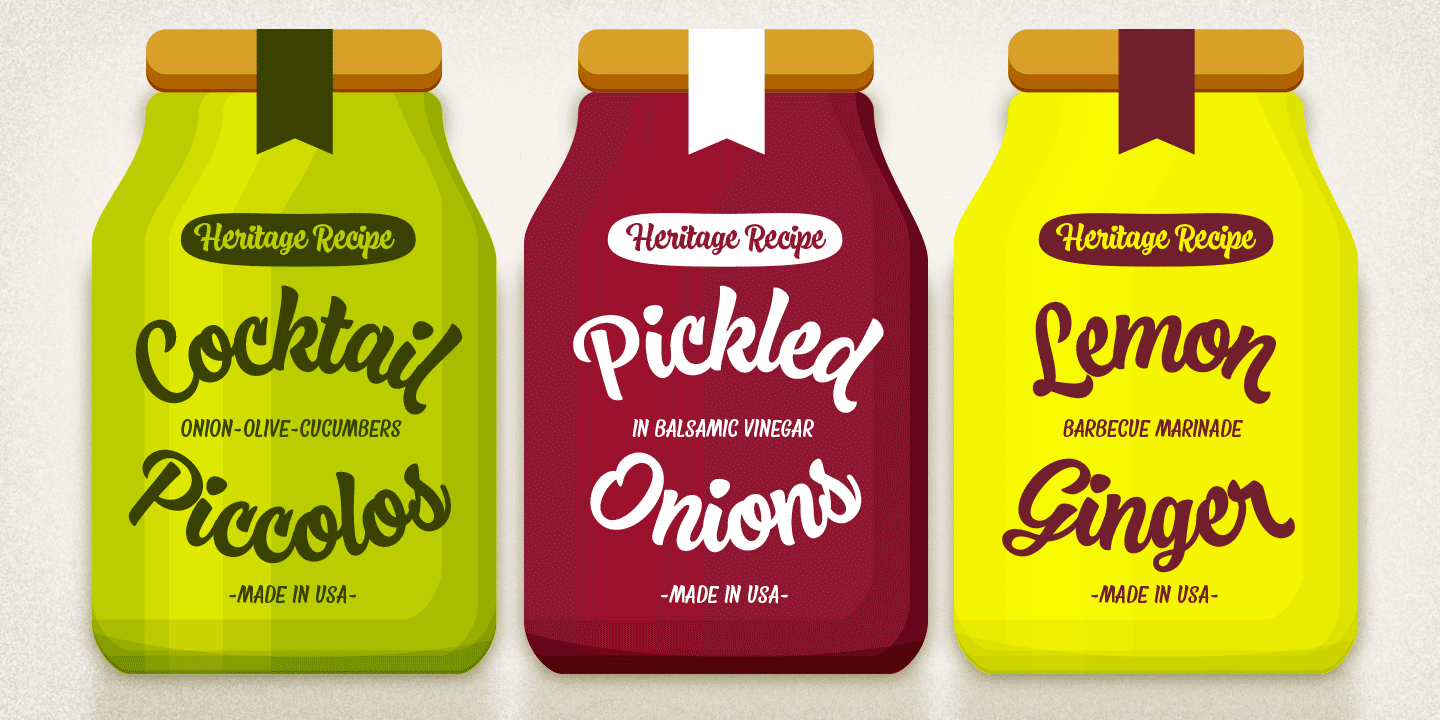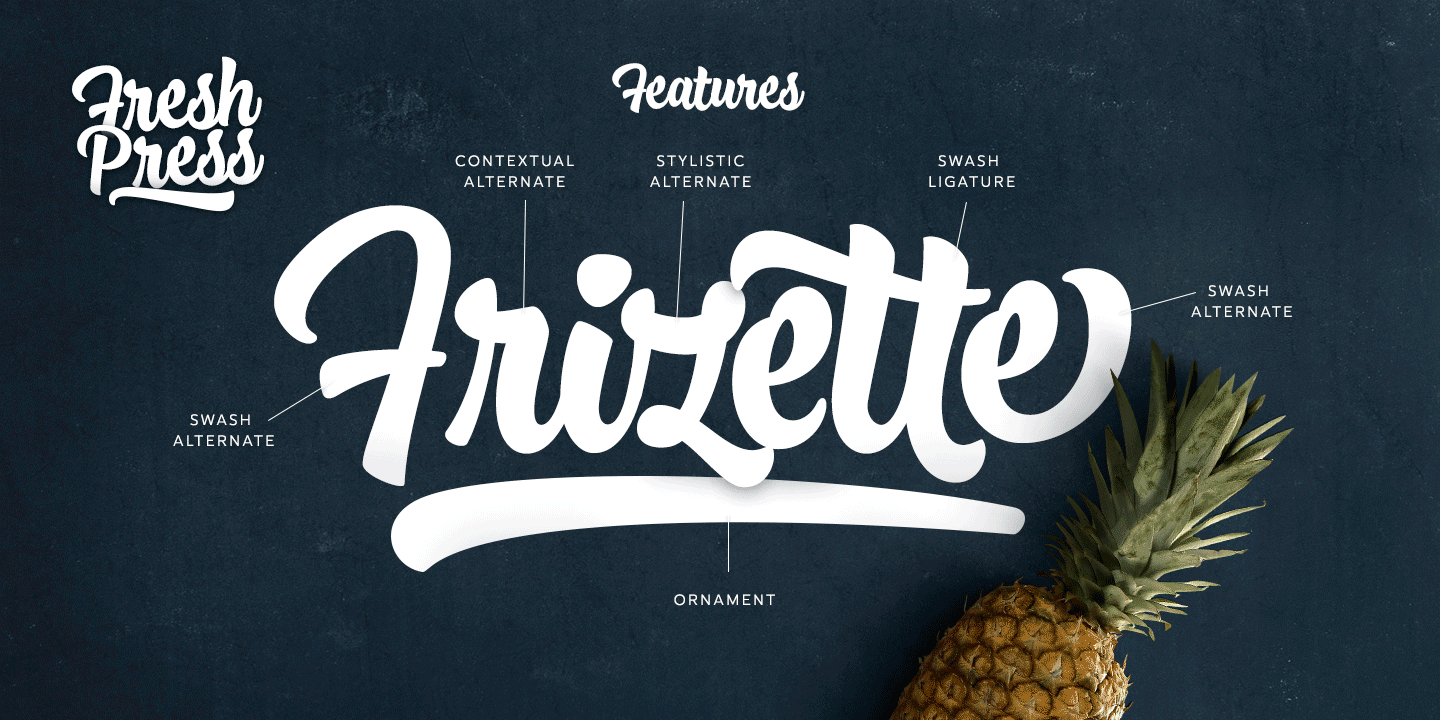
About Fresh Press
Fresh Press is a pack of handmade goodness – a visual delight in the form of beautiful and strong script family. Regular, Bold, Caps and Ornaments all play well together. If Fresh Press feels too clean there\’s a Printed version of the whole family with…